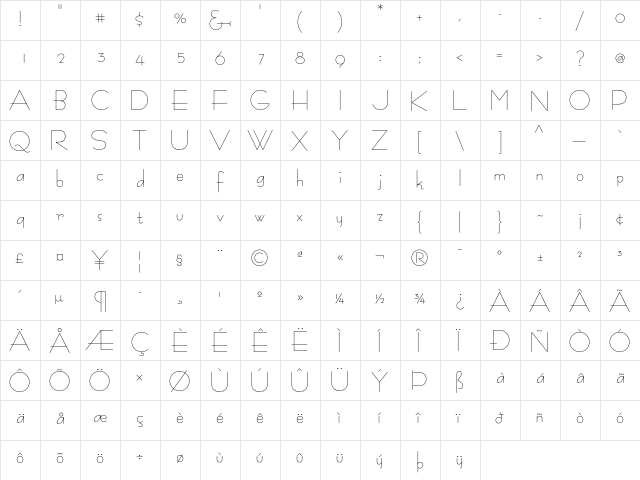
BernhardFashionICG Medium
Design Context for BernhardFashionICG Typeface
BernhardFashionICG offers clean, dependable letterforms without strong stylistic allegiance, making it a practical choice for designers who need flexibility.
Pro Tip: Use BernhardFashionICG in both headline and body roles to test its range before committing to a single application.